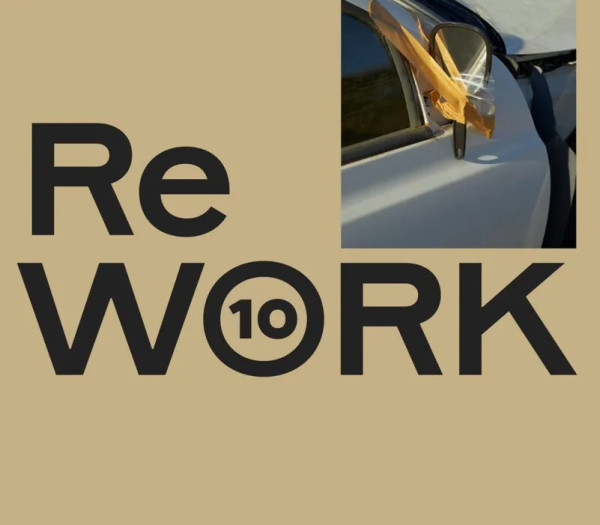
Rework Font
Rework Font is a modern geometric sans serif family characterized by its simplicity and extensive functionality. Inspired by the 19th century descendants of a foundational sans serif model.
Rework’s personality is defined by its contrasting industrial and humanistic qualities. The processes that shaped its ancestors – stone carving, metal type, copperplate engraving, phototypesetting – each leave their mark, giving Rework a decidedly pre-digital feel and a sense of robust physicality.
Rework’s more overtly mechanical traits – its perpendicular terminals, and the slightly squared ovals of its rounded characters – are tempered by the humanistic proportions of its uppercase, and moments of irregularity and unexpected contrast in the lowercase letterforms.
It’s this combination of qualities that lends Rework Font the feel of a thing shaped over time; revised, rebuilt, and reconditioned. Like a perpetual work-in-progress for a world that’s always changing.